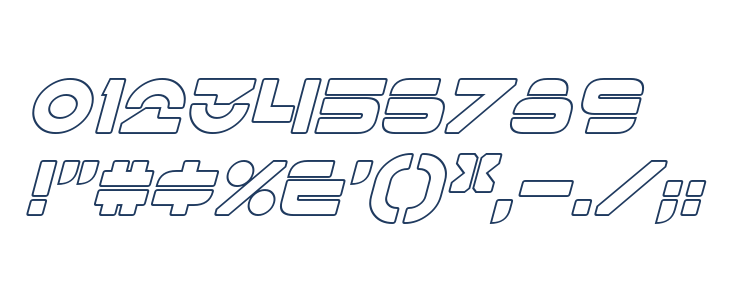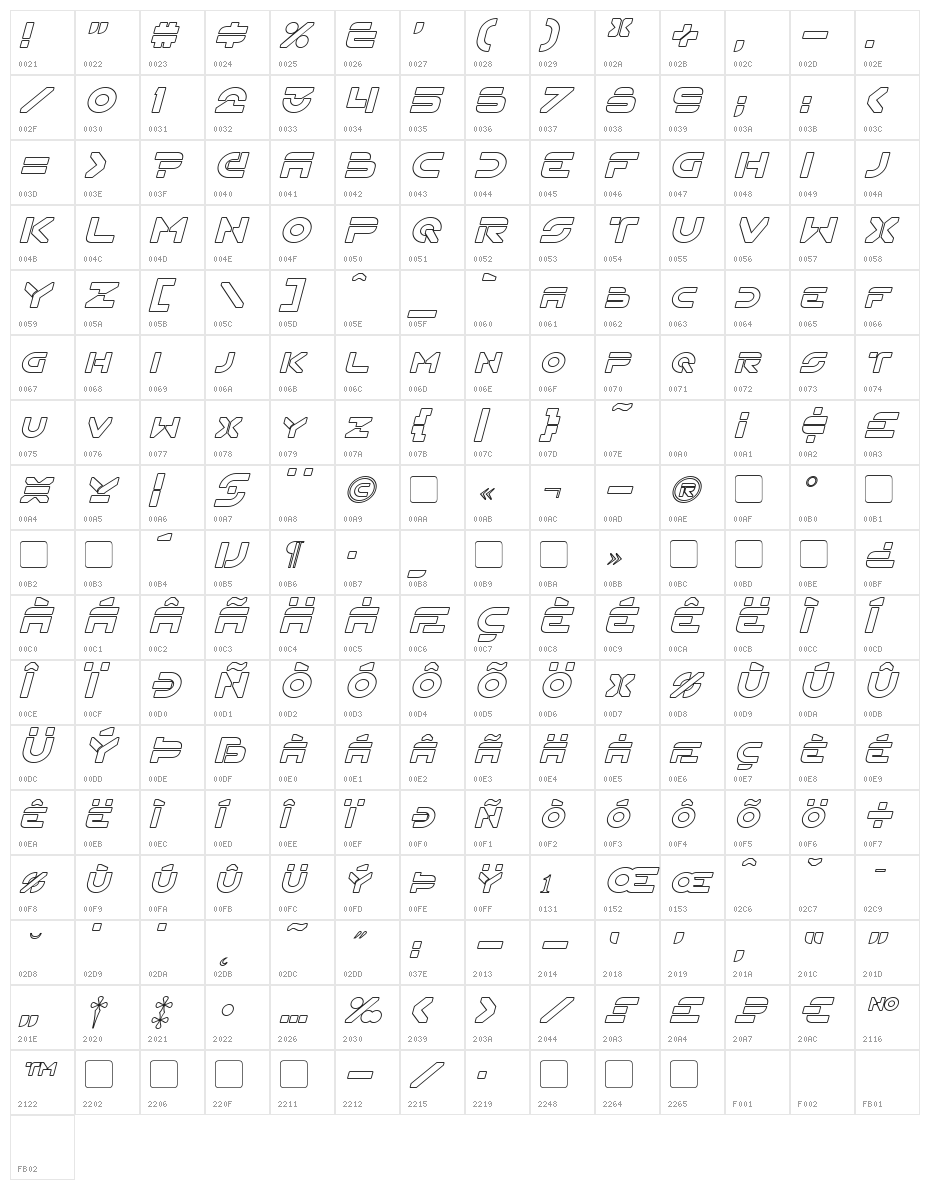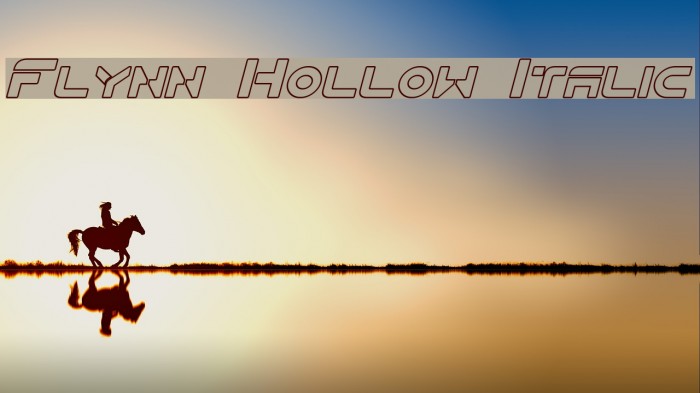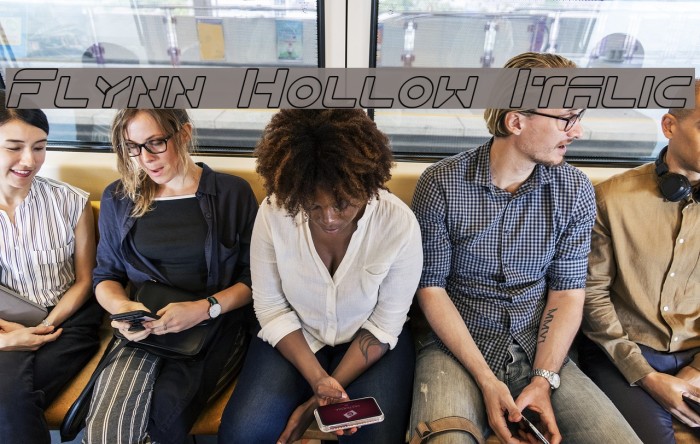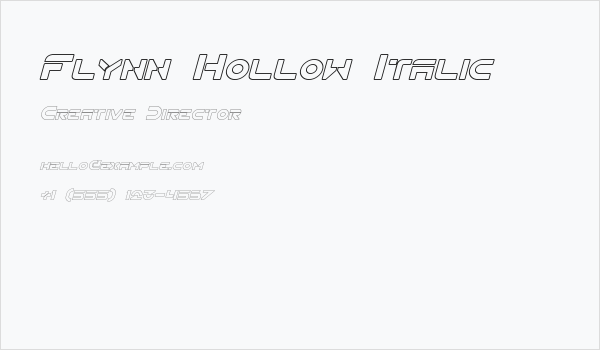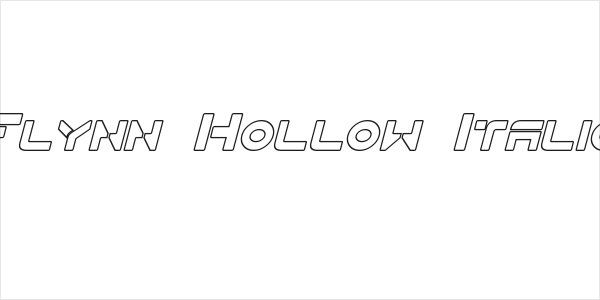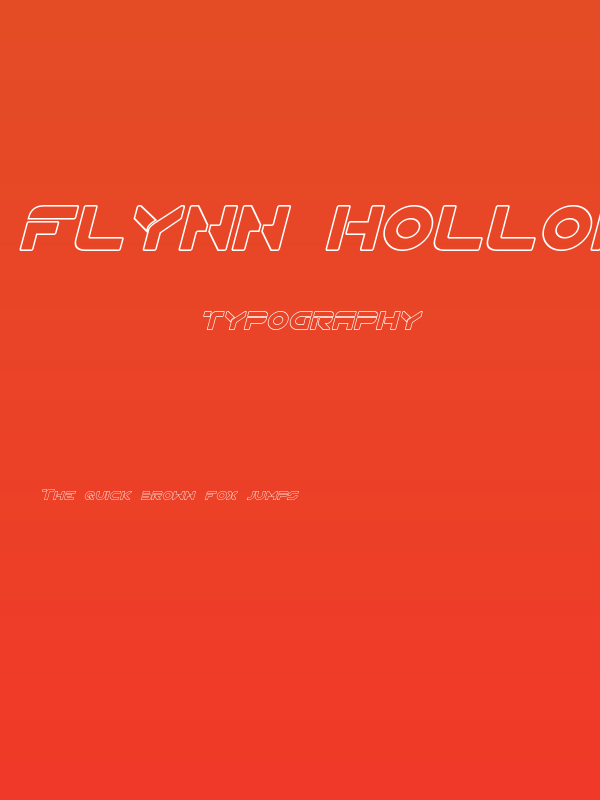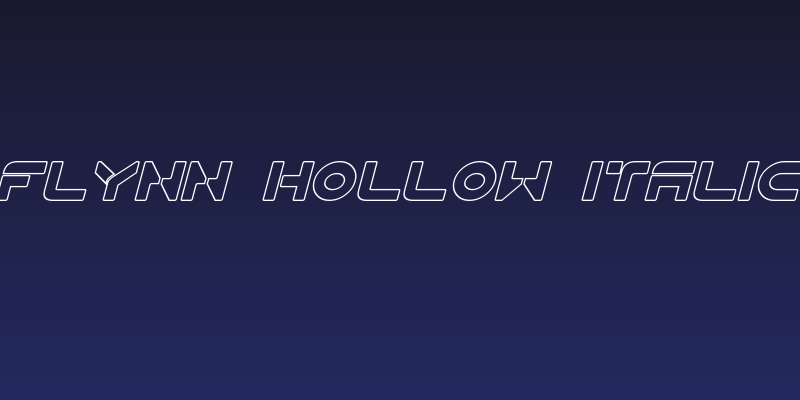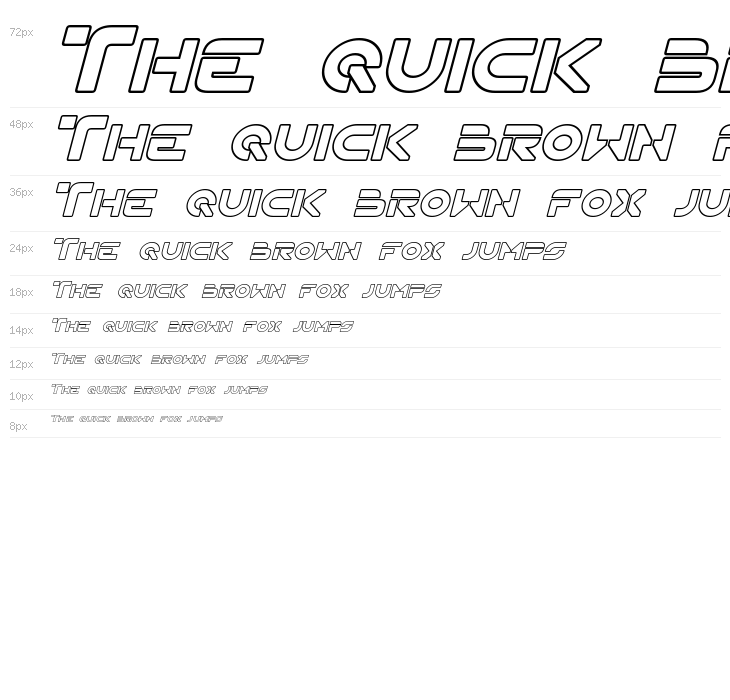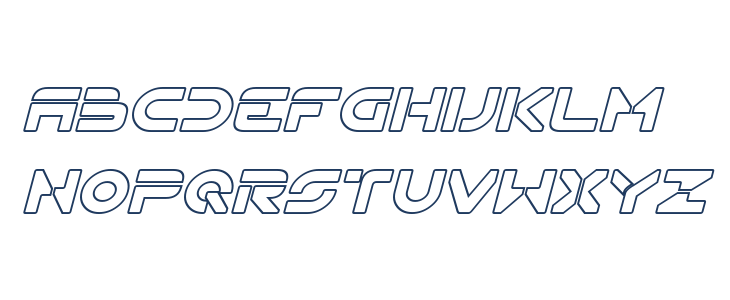
Flynn Hollow Italic Font
Flynn Hollow Italic Description
This font features a futuristic and geometric design with hollow, outlined characters. The uppercase and lowercase letters share a consistent style, emphasizing angular and sharp edges. The numbers and special characters maintain this cohesive look, making the font suitable for modern and tech-oriented designs. The italic slant adds a dynamic and forward-moving appearance, enhancing its contemporary feel. The overall design is clean and minimalistic, with a focus on structure and form.
| Use Case | Logos, Headlines, Digital Interfaces |
| Proposed Projects | Ideal for tech branding, sci-fi themed projects, modern logos, and digital interfaces. |